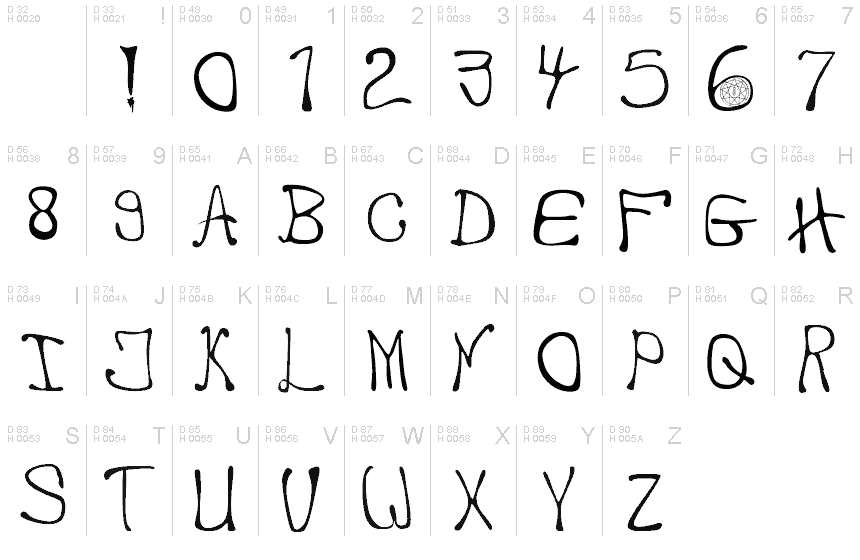
my handwriting
Maarten Bax's "My Handwriting" typeface exudes a captivating, organic charm that evokes a sense of personal expression. This handwritten font boasts an authentic, free-flowing aesthetic, with each stroke conveying a distinct, hand-crafted quality. The varying line weights and playful irregularities lend a genuine, human touch, inviting viewers to connect with the content on a more intimate level.
"My Handwriting" seamlessly bridges the gap between digital and analog, making it a versatile choice for a wide range of design applications. From editorial layouts and branding materials to packaging and stationery, this font's unique personality can breathe life into diverse creative projects, adding a touch of personalization and authenticity that resonates with audiences.